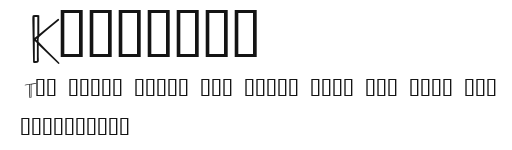
Kriesler Preview
• Font Name: Kriesler
• Full Font Name: Kriesler
• Character Count: 27
About Kriesler.ttf
Kriesler.ttf is a modern, elegant sans-serif font designed for ultimate readability and visual harmony. Perfect for branding, headlines, web design, and print materials.